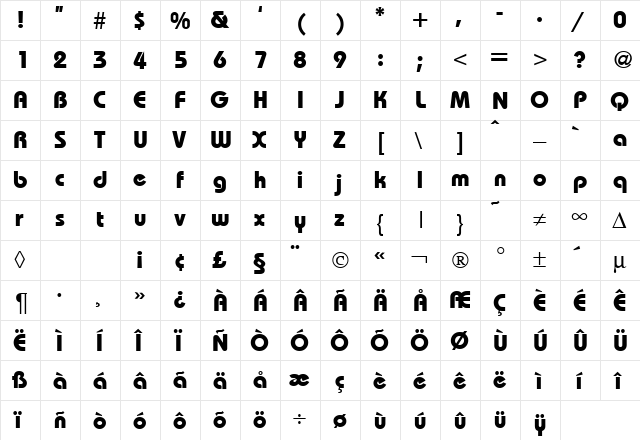
RoundHouseHeavy Regular
Design Context for RoundHouseHeavy Typeface
RoundHouseHeavy uses gentle rounded endings to create a warm, inviting typographic personality — less corporate than geometric sans, more refined than playful display fonts.
Well-suited to UI design, mobile interfaces, and any brand that wants approachability without sacrificing clarity.
Font Pairing: Pairs well with a rounded or humanist sans for body copy, maintaining the friendly tone without relying on RoundHouseHeavy to carry extended reading.
Pro Tip: Use RoundHouseHeavy for UI elements, app interfaces, and anywhere a friendly, approachable tone needs to be maintained without sacrificing clarity.